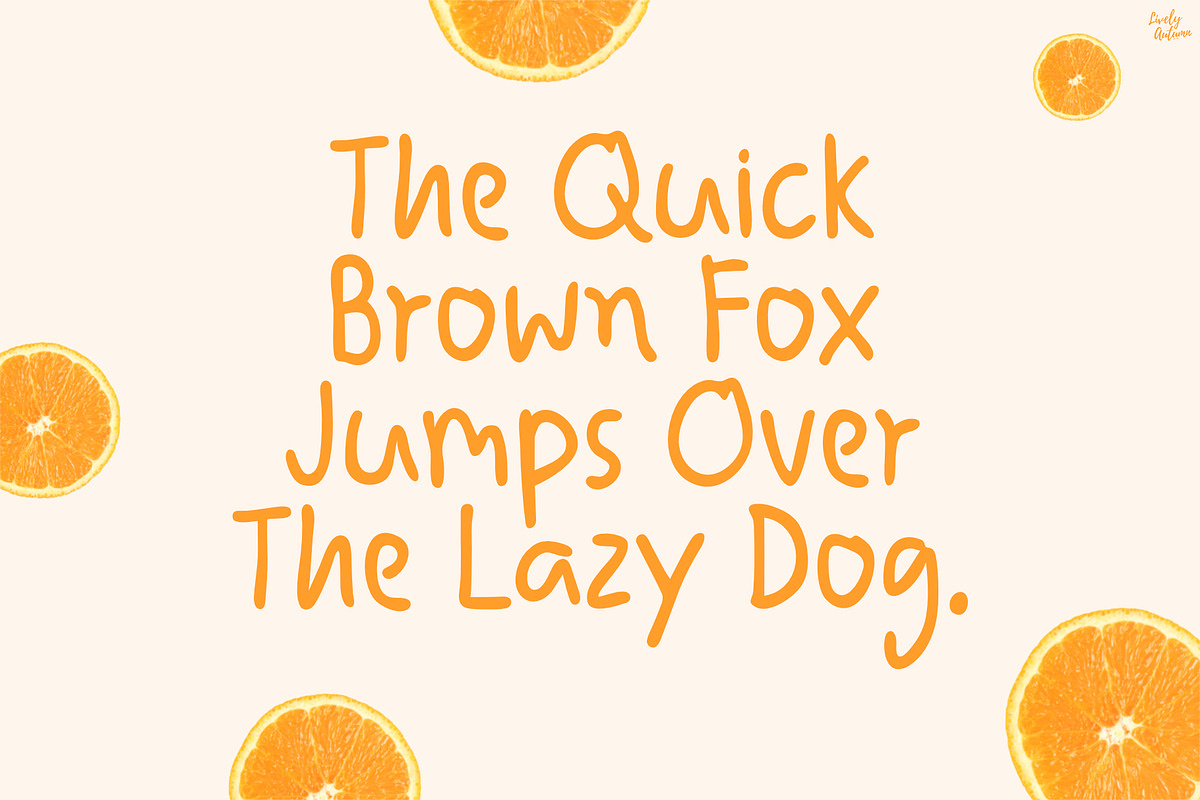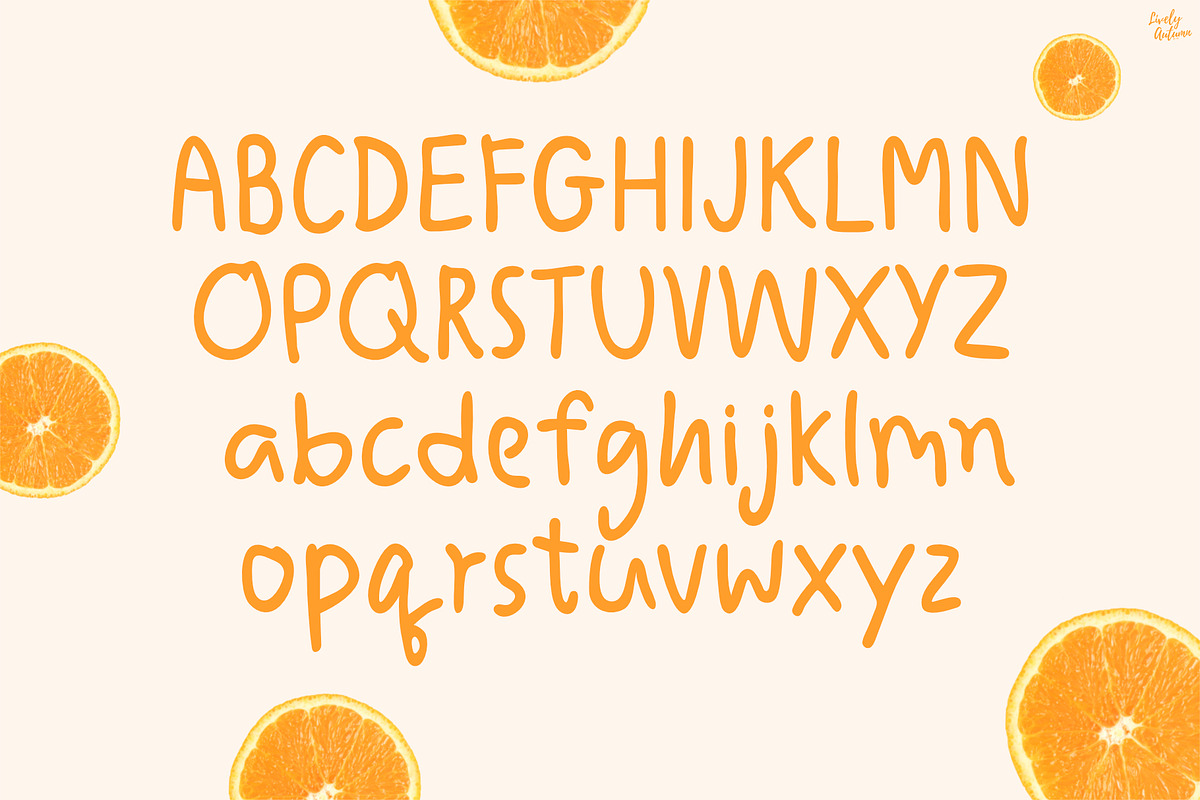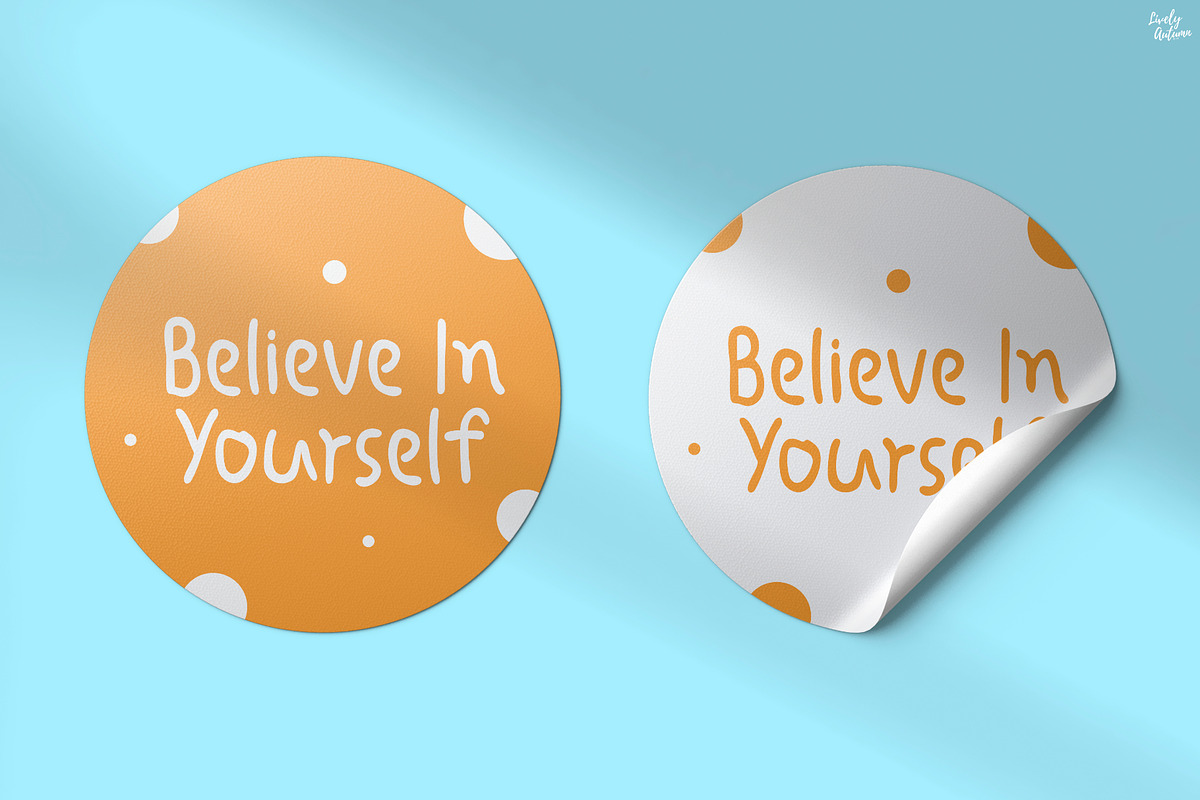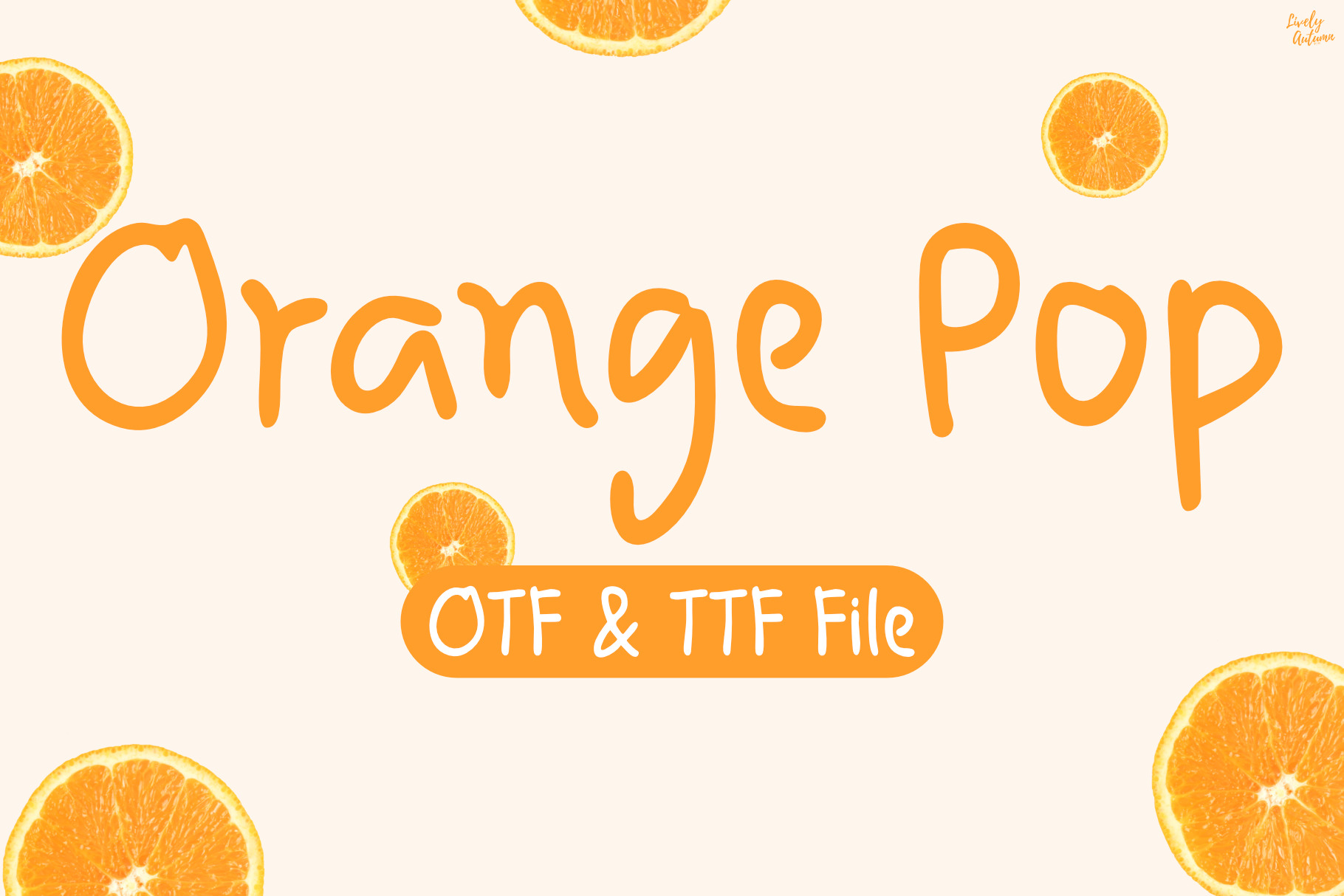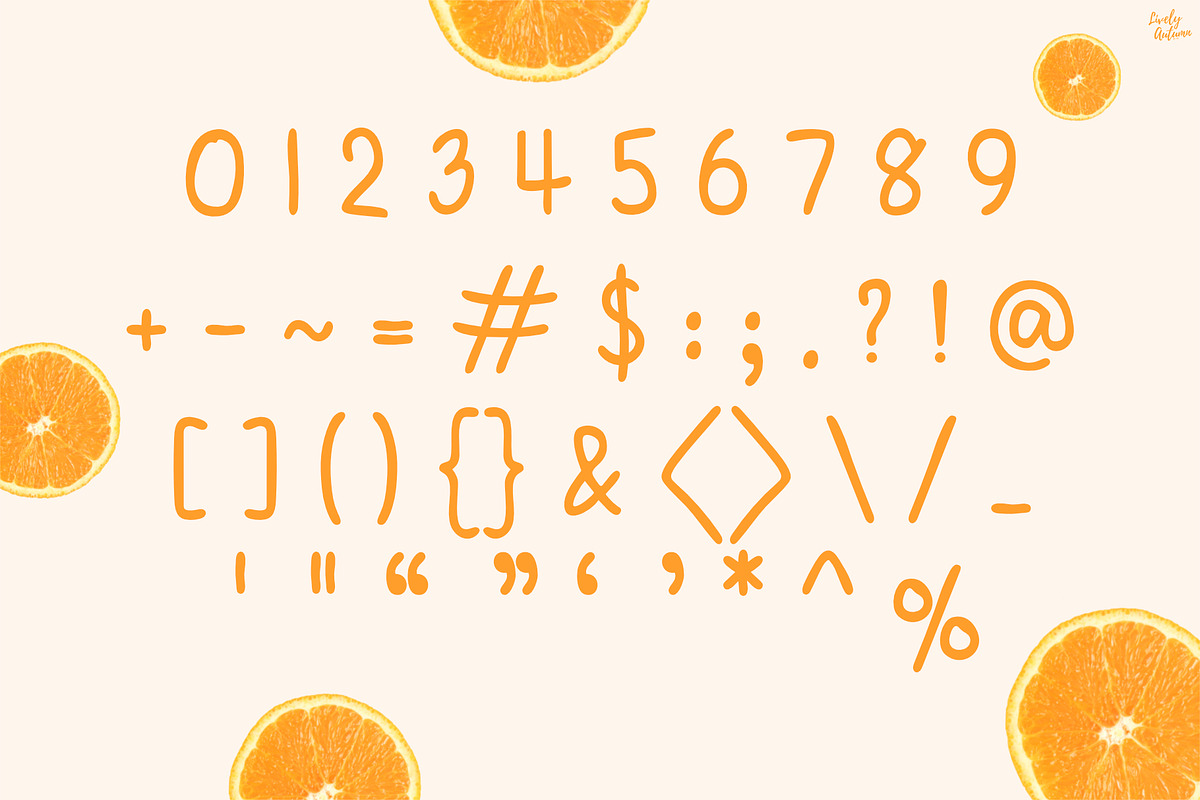
Orange Pop | Handwritten font
Orange Pop Font is a cute handwritten font. Perfect for your personal projects and various projects. From invitations to posters, social media graphics, journals, and much more.
- Font includes: uppercase, lowercase, numbers, and punctuation